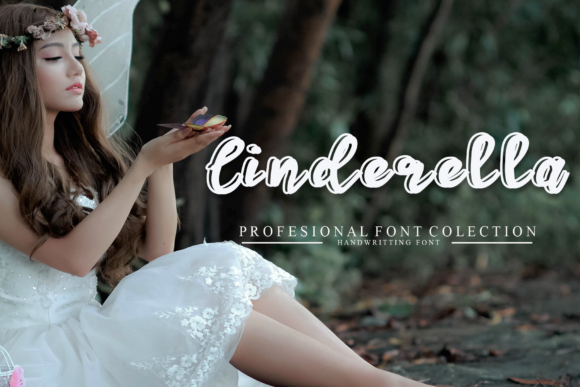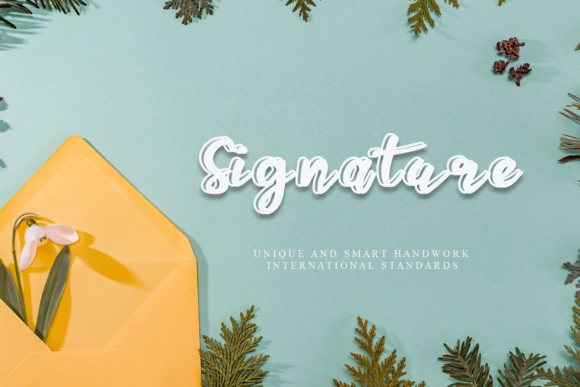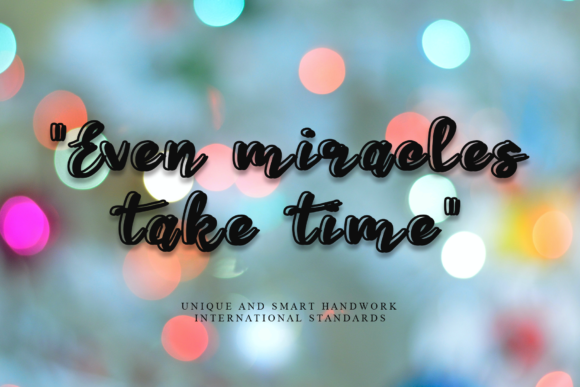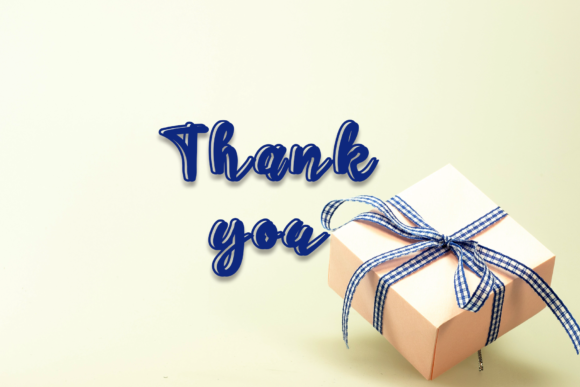
HomePersonal Use FreeCinderella Personal Use Free Cinderella FacebookTwitterPinterestWhatsApp 1 of 5 About Cinderella Font Cinderella is a sweet and delicate handwritten font. Dainty and elegant, this font will brighten up each of your designs. DOWNLOAD NOW People also explored Magnolia Font Hogly Font Sambay Font Mauve Bella Canvas 3001 T Shirt Mockup Sticker Font Sun Beauty Font Harvest Star Font Evolution Kingsley Font 181 0 TagsCinderella Font Previous articleBruttneyNext articleSweet Beautiful LEAVE A REPLY Cancel reply Comment: Please enter your comment! Name:* Please enter your name here Email:* You have entered an incorrect email address! Please enter your email address here Website: Save my name, email, and website in this browser for the next time I comment. Personal Use Free Banana Valentine Personal Use Free Read more about this font Juliagar Personal Use Free Read more about this font Monofonto Personal Use Free Read more about this font Expaing Personal Use Free Read more about this font BLOG Elegant Wedding Invitation Fonts – Handwritten & Script Fonts Elegant Wedding Invitation Fonts Your wedding day is one of the most important moments of your life, and every detail matters—including your invitation design. Our... Using Fonts in Digital Marketing: Tips to Strengthen Your Brand Identity Where to Buy American Fonts Online in 2024 To increase your work productivity, choose the most readable fonts.